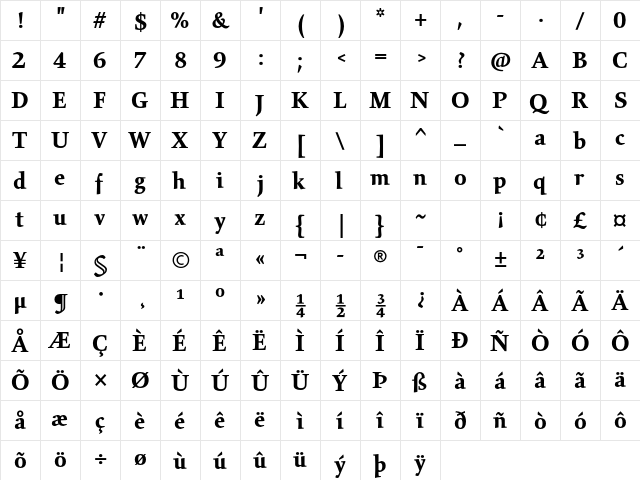
Gilgamesh Std Bold
| Designer | Michael Gills |
Design Context for Gilgamesh Std Typeface
Gilgamesh Std takes a measured approach to typography — its balanced proportions and neutral character make it a reliable workhorse for both digital and print work. The heavy weight commands attention and anchors typographic hierarchies.